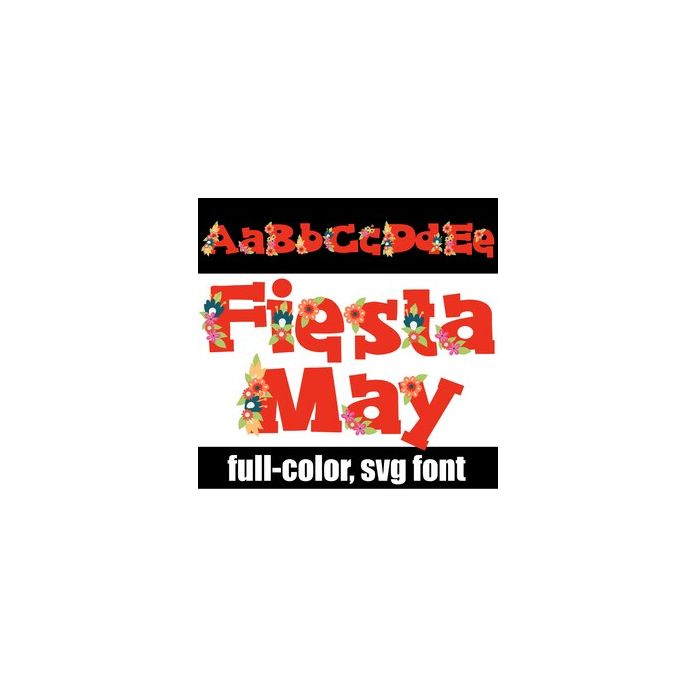
This full-color font features blocky serif letters with spring florals. There is a secondary color of each letter you can access through your system's or Silhouette's glyph map.